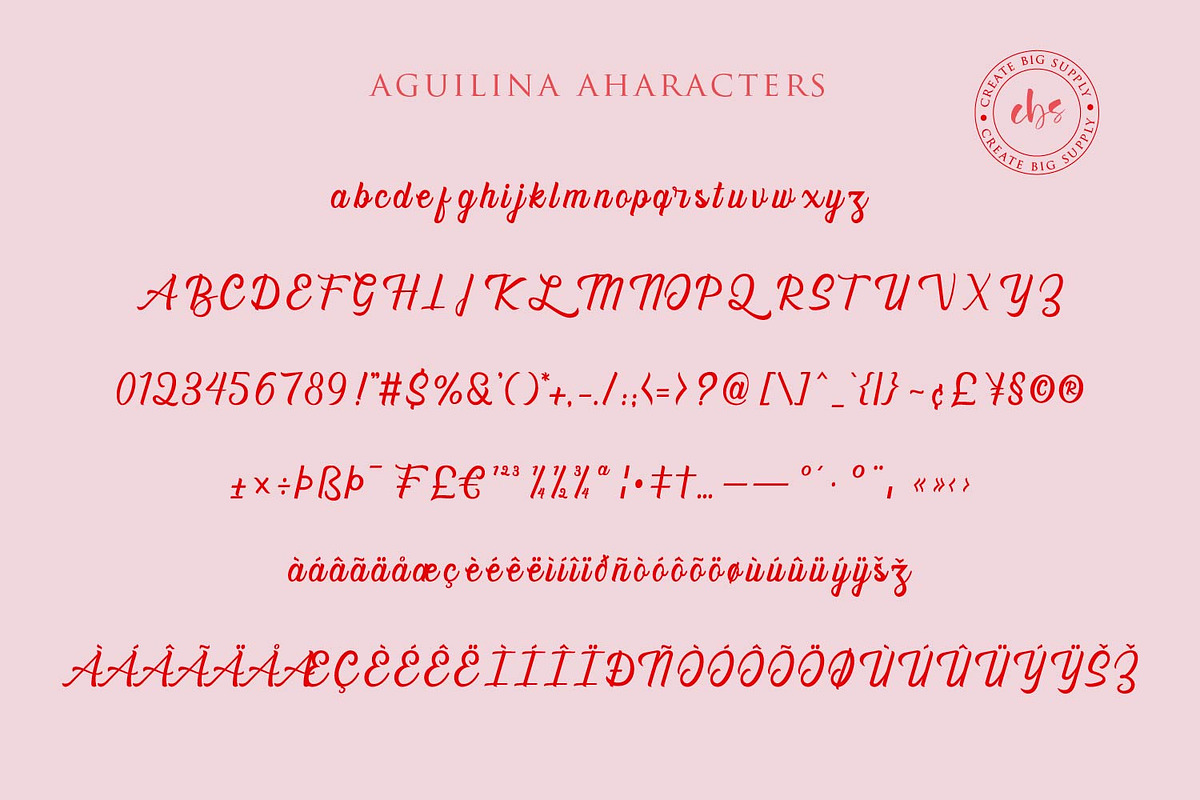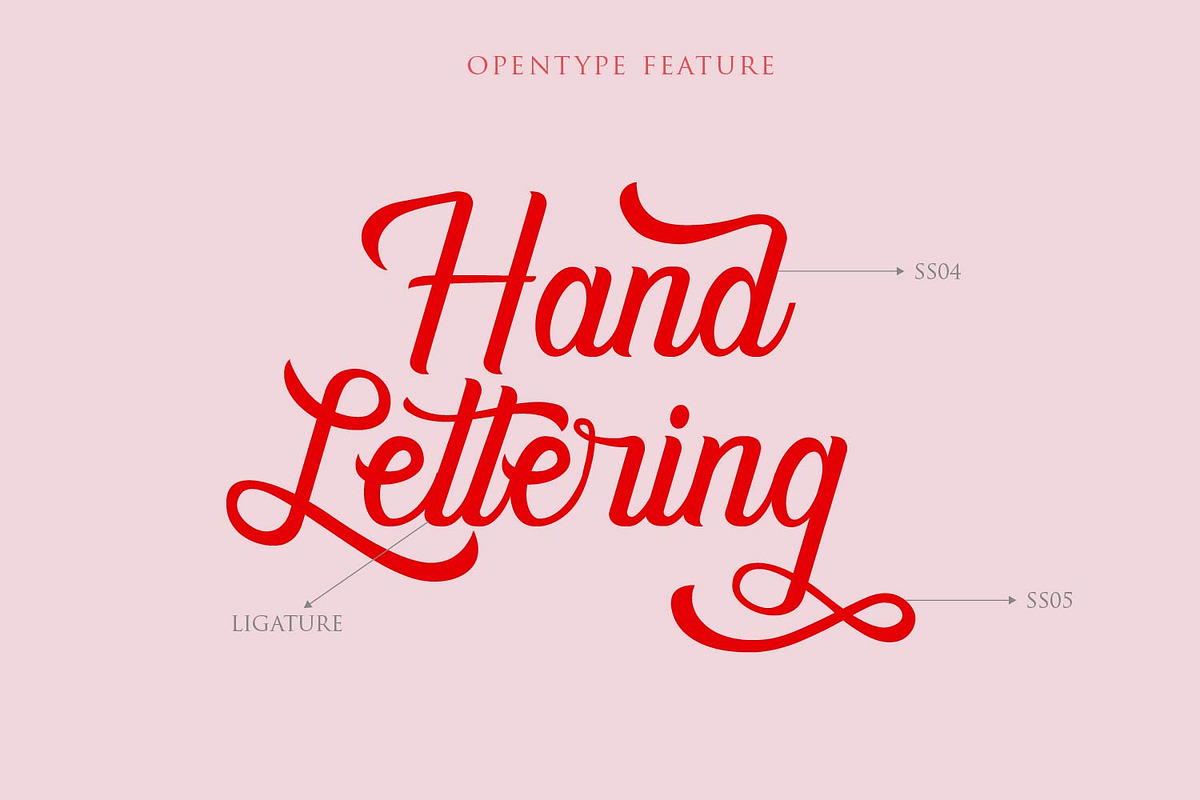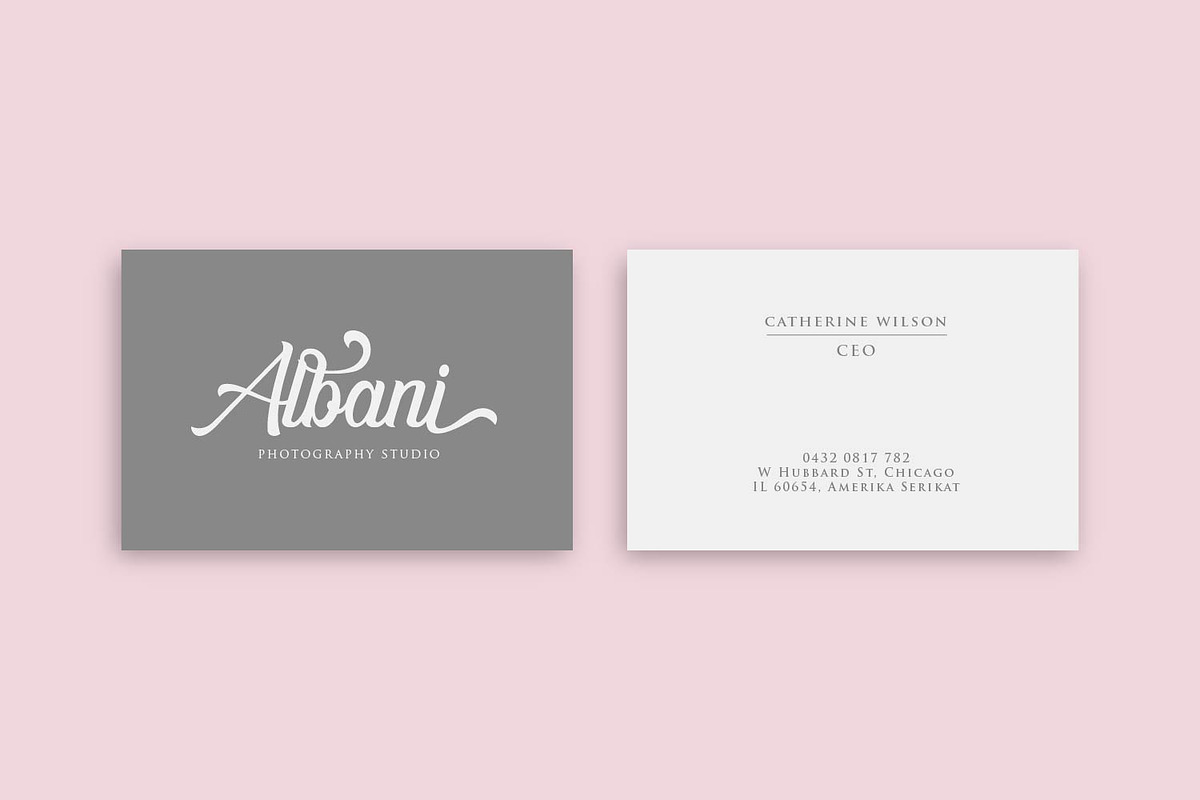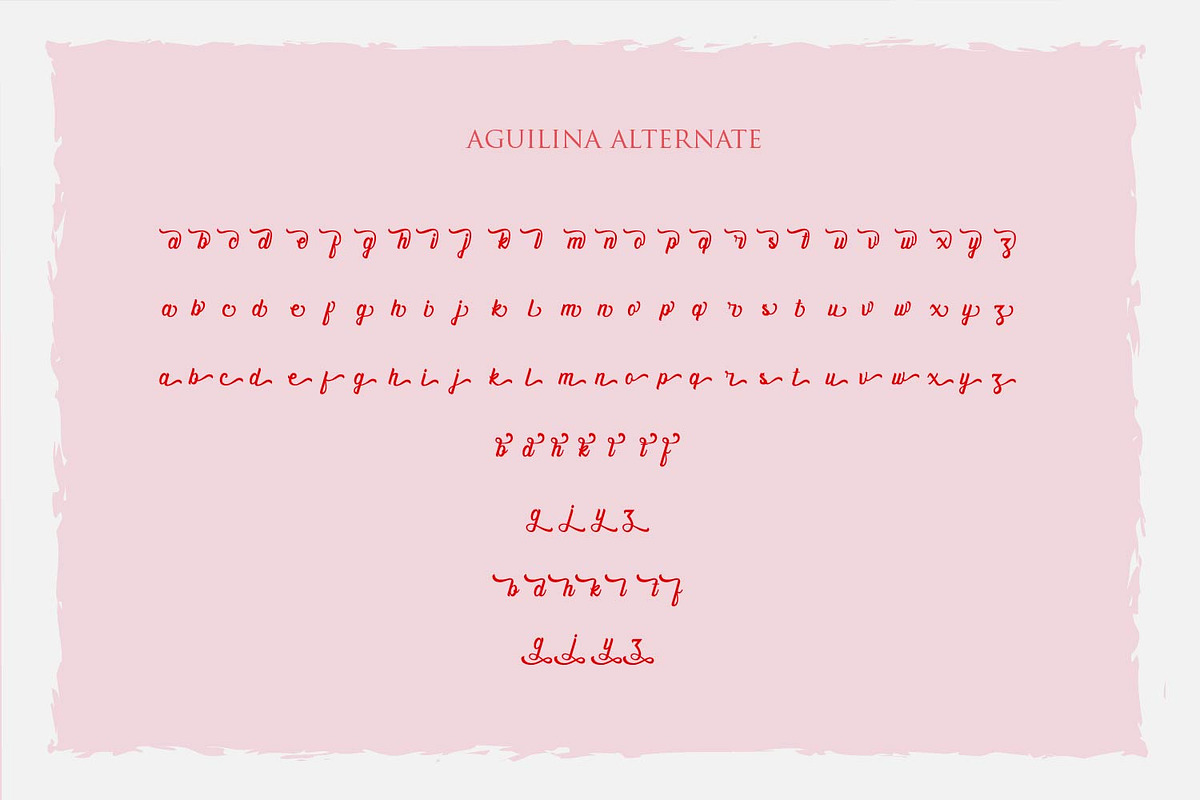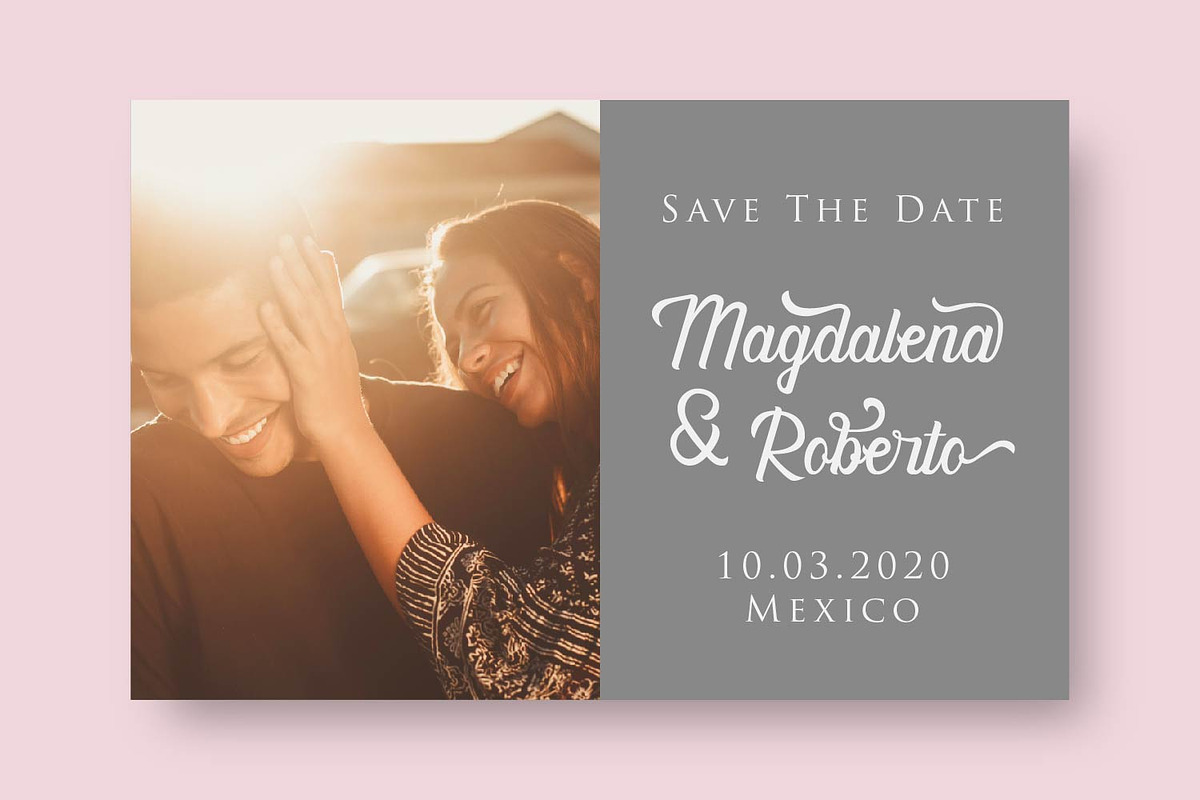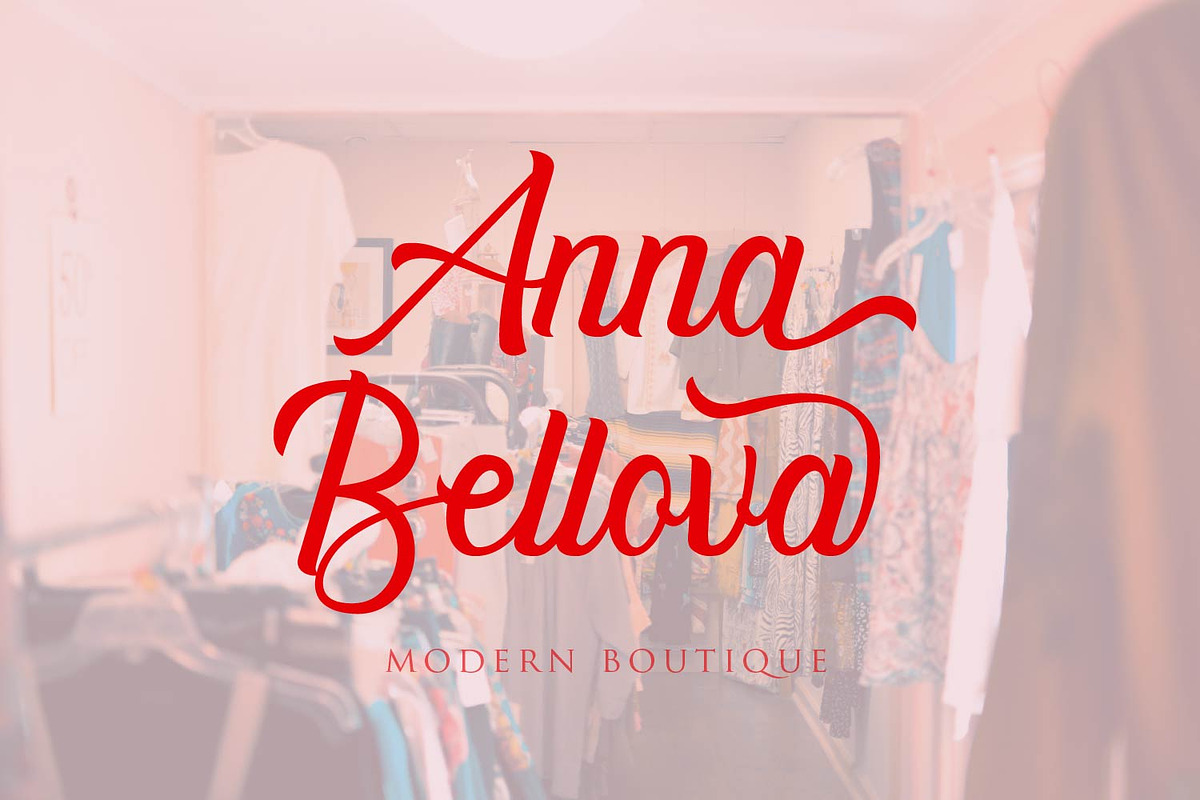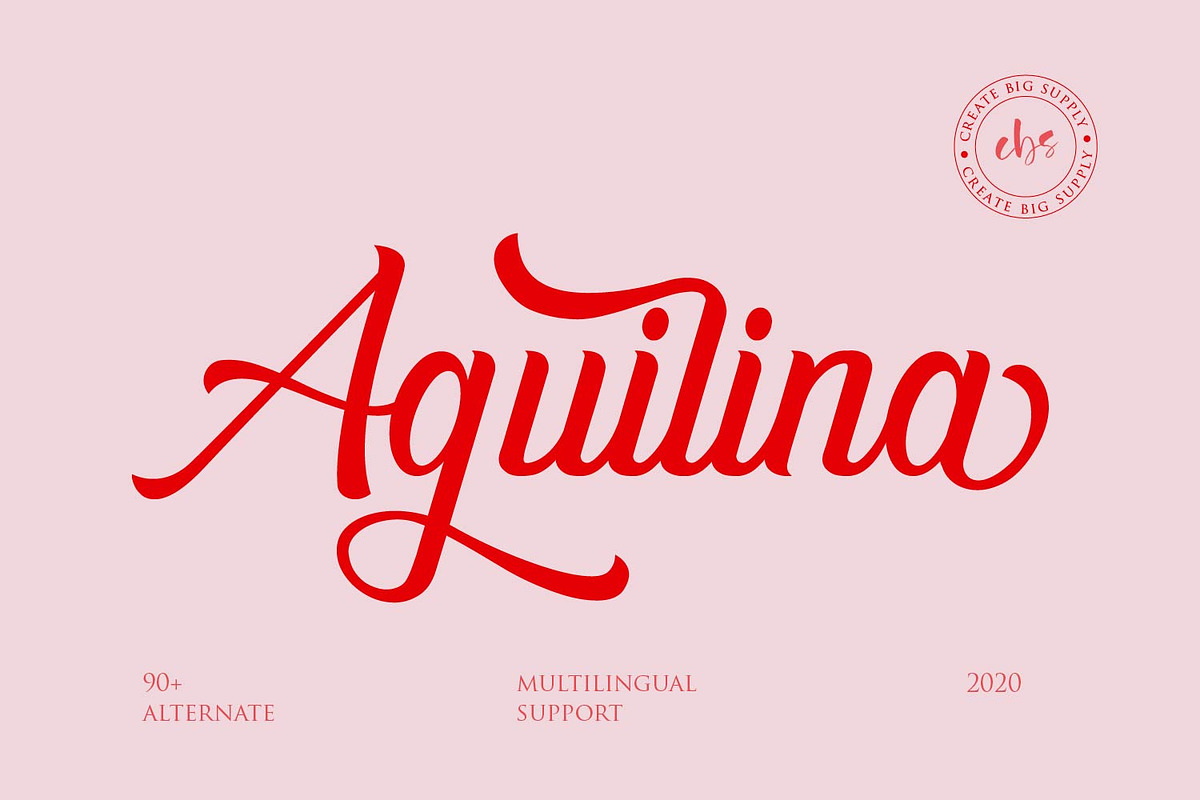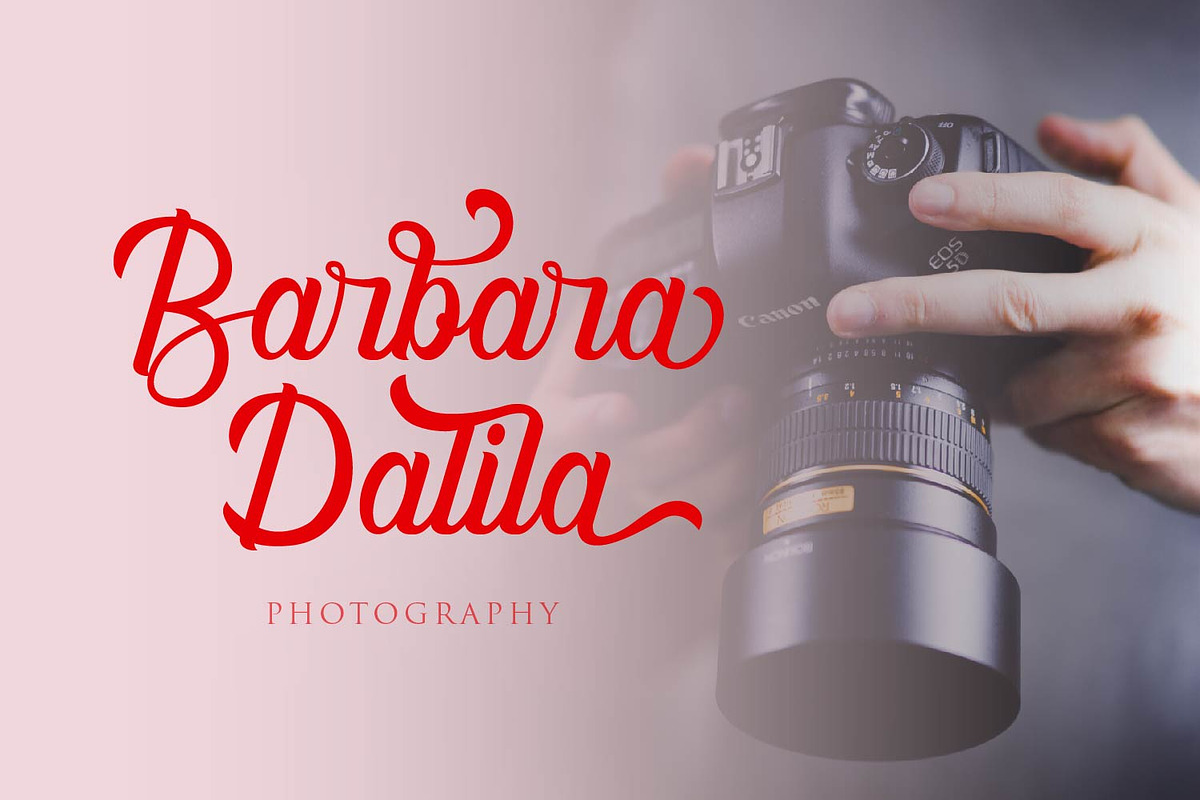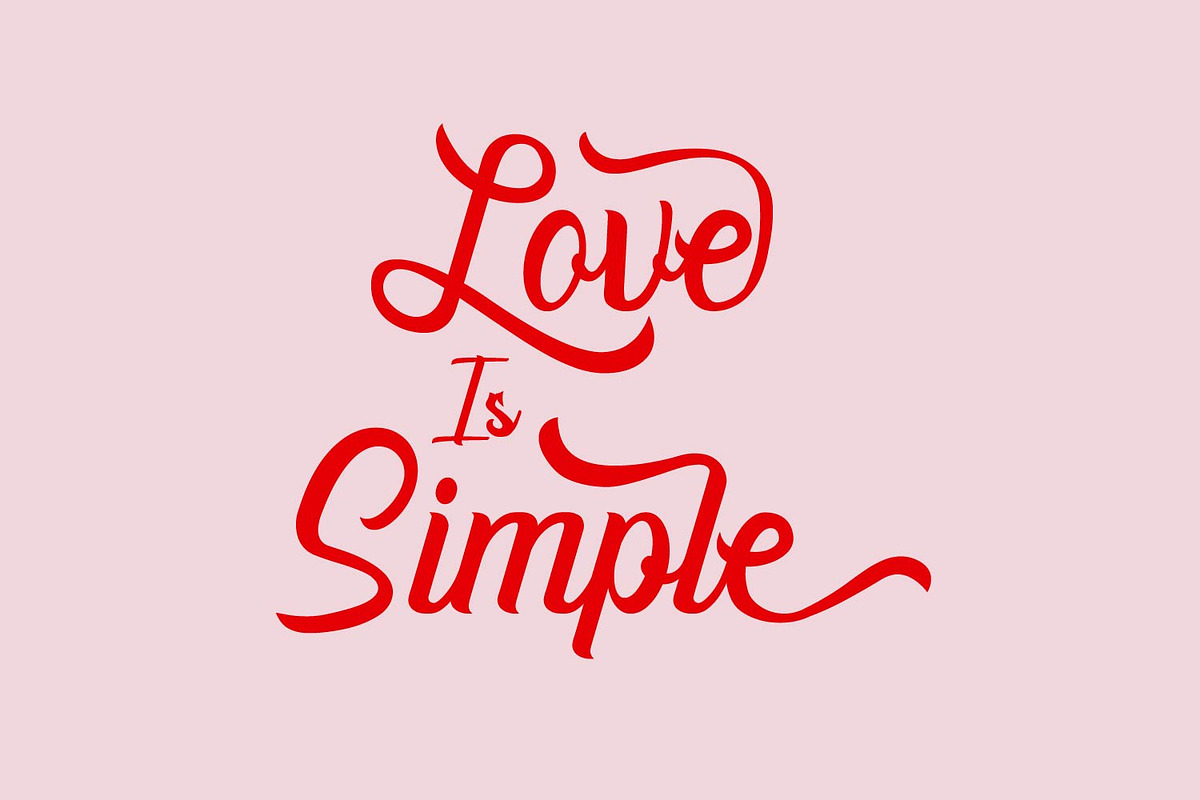
Aguilina
Aguilina is a charming and flowing handwritten font. It looks stunning on wedding invitations, thank you cards, quotes, greeting cards, logos, business cards and every other design which needs a handwritten touch.
This font is PUA encoded which means you can access all of the glyphs and swashes with ease! It features a varying baseline, smooth lines, gorgeous glyphs and stunning alternates.